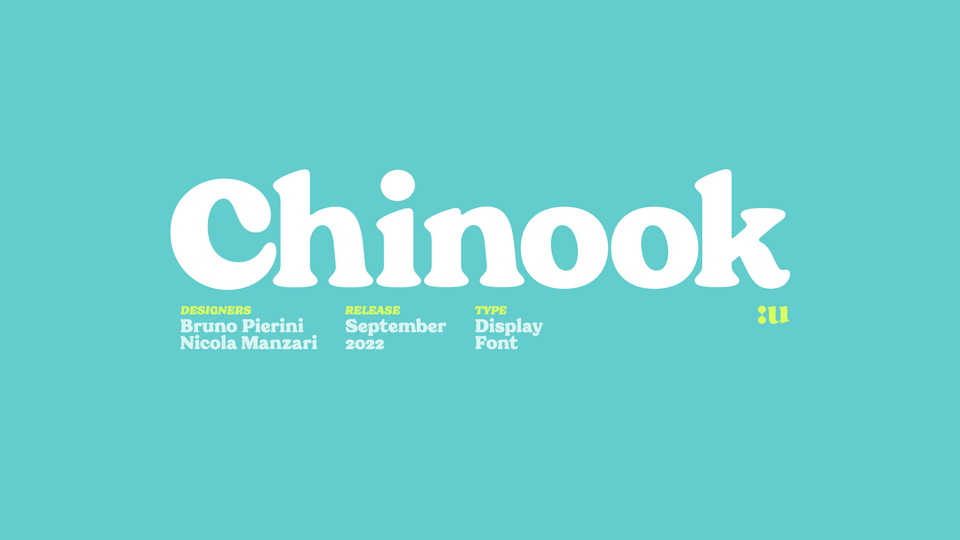
Download Chinook font, a serif typeface designed as a homage to the iconic chunky look of the Italian movie titling from the 70s and 80s. Despite its vintage flair, Chinook font is perfectly adaptable for any contemporary context with its balanced and soft text typesetting.